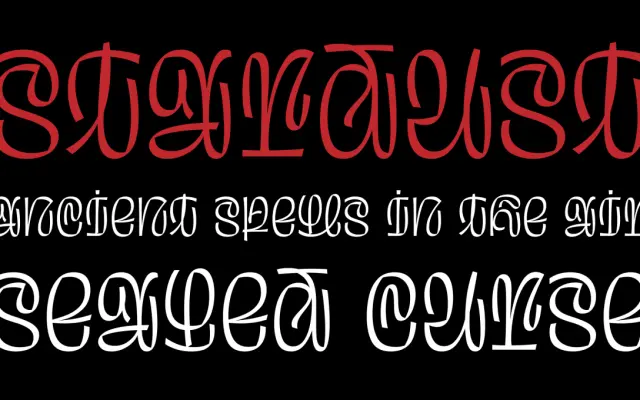
Grima
Fontfabric · Todor Georgiev · 2023
A bold unicase display typeface built across five widths and a variable font, drawing from flat brush lettering and monospaced grid logic.
Designed by Todor Georgiev and released by Fontfabric in 2023, Grima takes its conceptual cue from 'Unispace' thinking — merging unicase letterforms with the consistent rhythm of monospaced type. The family spans five widths from Narrow to UltraWide, with a variable font for smooth transitions across the range. Extended Latin and Cyrillic coverage, plus OpenType ligatures and localisation features, make it a practical choice for poster, packaging and branding work across multiple languages.
Grima blends unicase and monospaced traits in a display context, originating from flat brush lettering sketches with calligraphic nuances — placing it firmly in experimental display rather than any conventional text category.